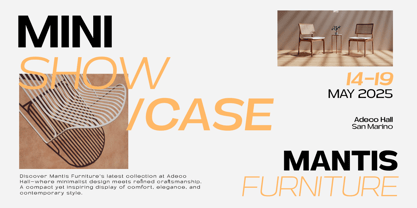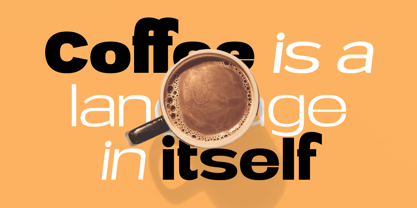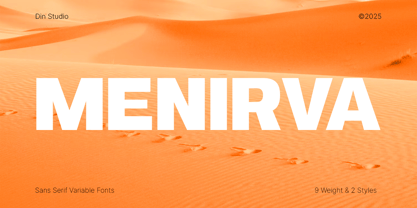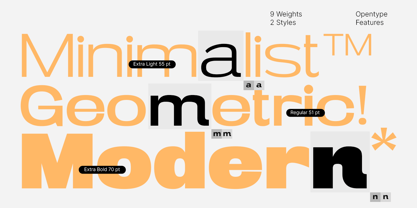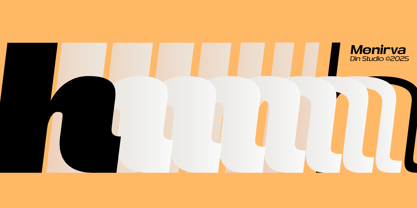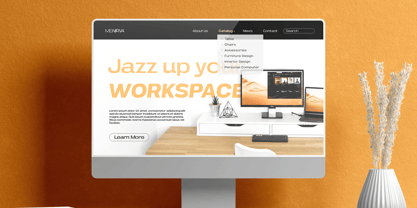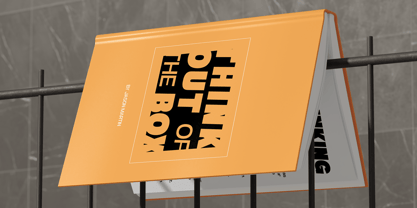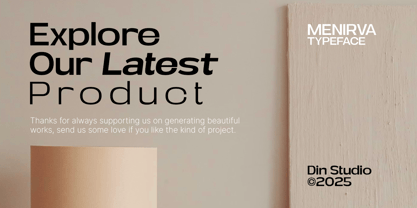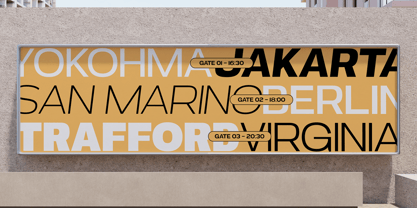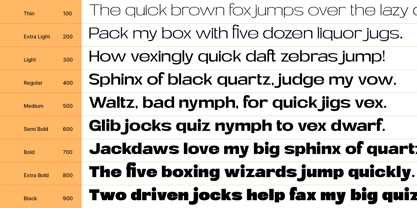
Menirva
by Din Studio
The Menirva Font Family was designed by Donis Miftahudin and published by Din Studio. Menirva contains 18 styles and family package options. More about this family
Menirva is a sophisticated serif font family crafted to embody minimalist elegance. Spanning nine distinctive weights from Thin to Black, Menirva offers designers a versatile typographic palette that adapts seamlessly across applications. Its clean, thoughtfully refined letterforms deliver a timeless aesthetic, combining subtle sophistication with modern simplicity. Menirva brings a quiet confidence and graceful clarity to any project. In addition, enjoy the features here.
Menirva fits in bold branding, packaging, posters, headlines, editorial designs, and many more designs. Find out more ways to use this font by taking a look at the font preview.